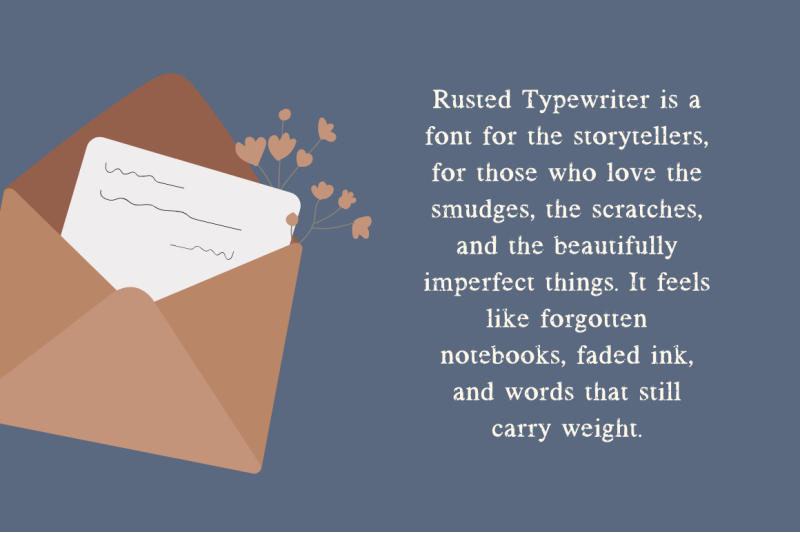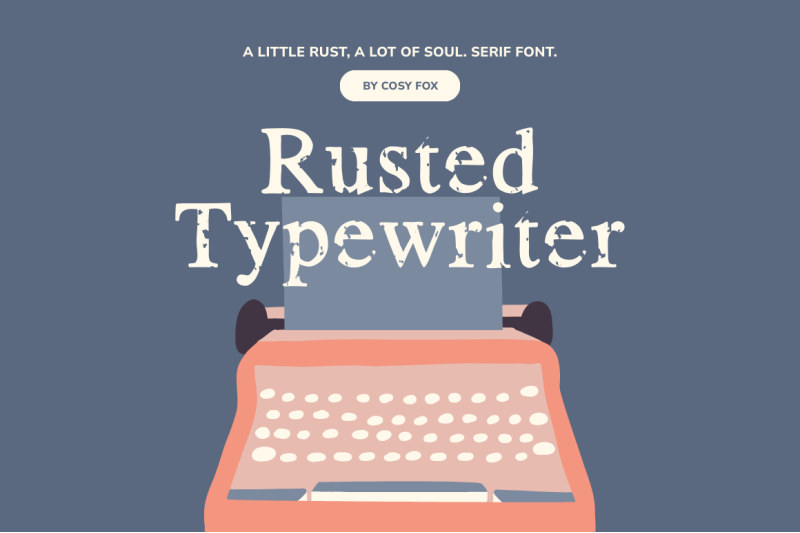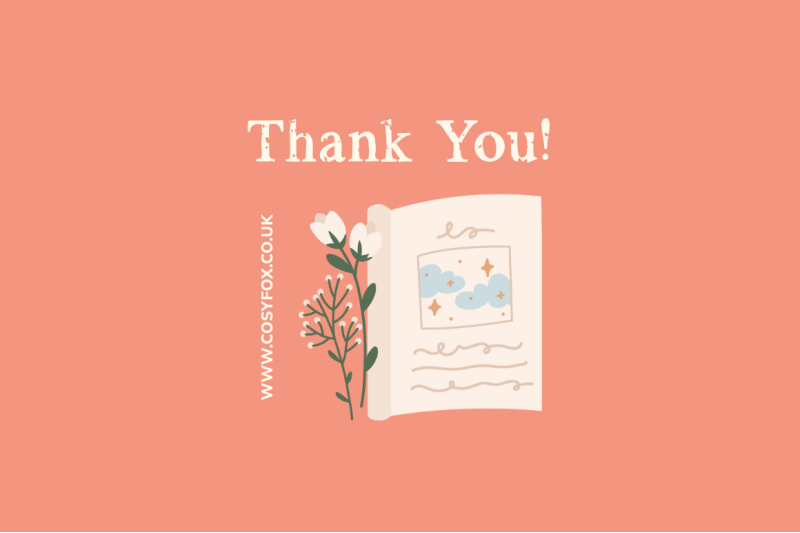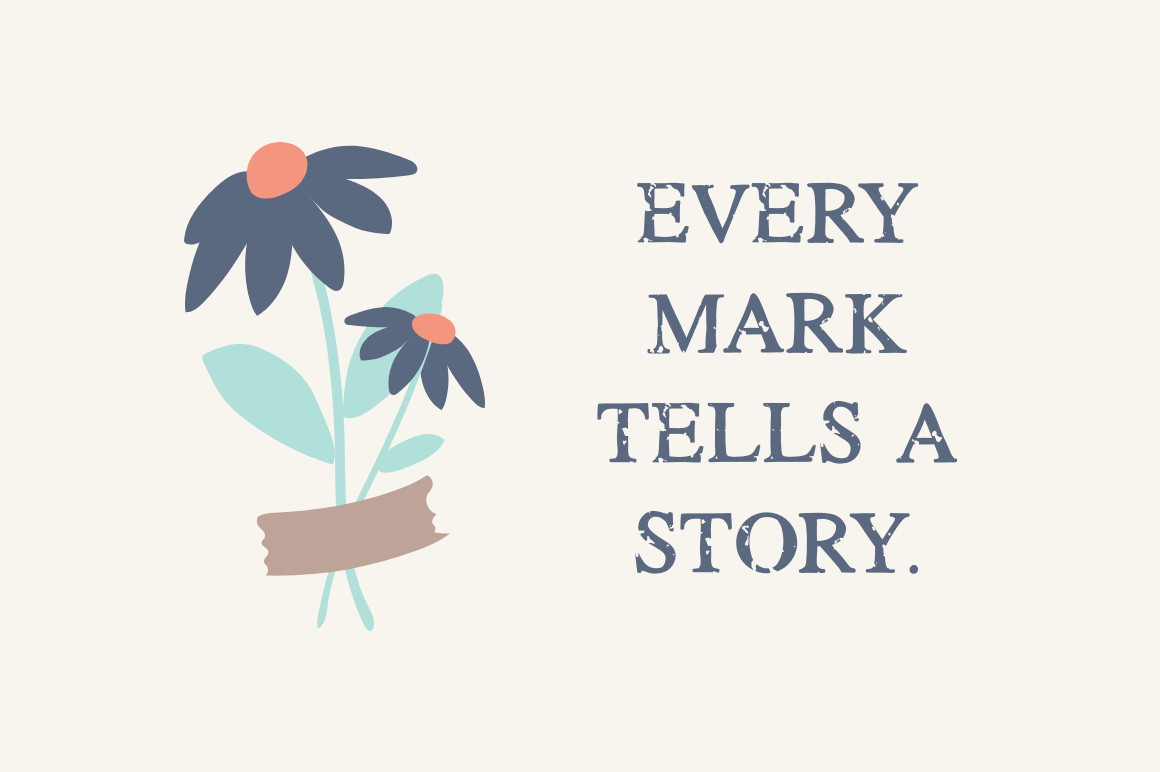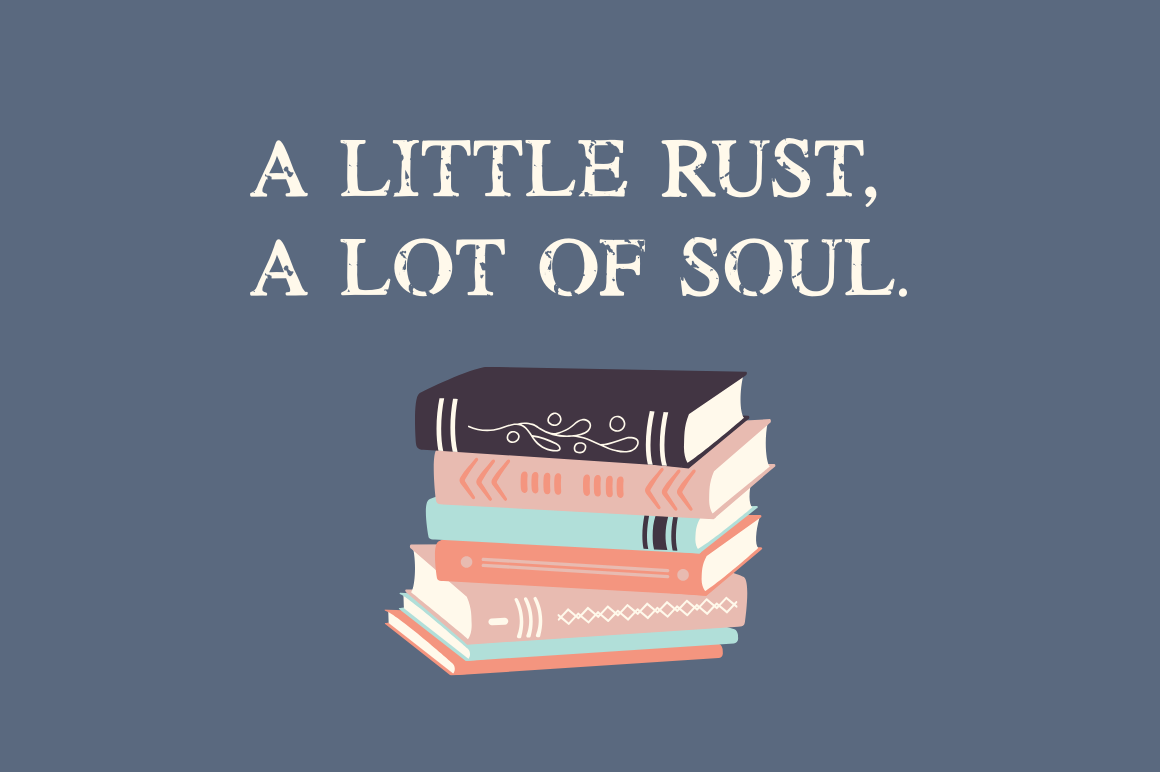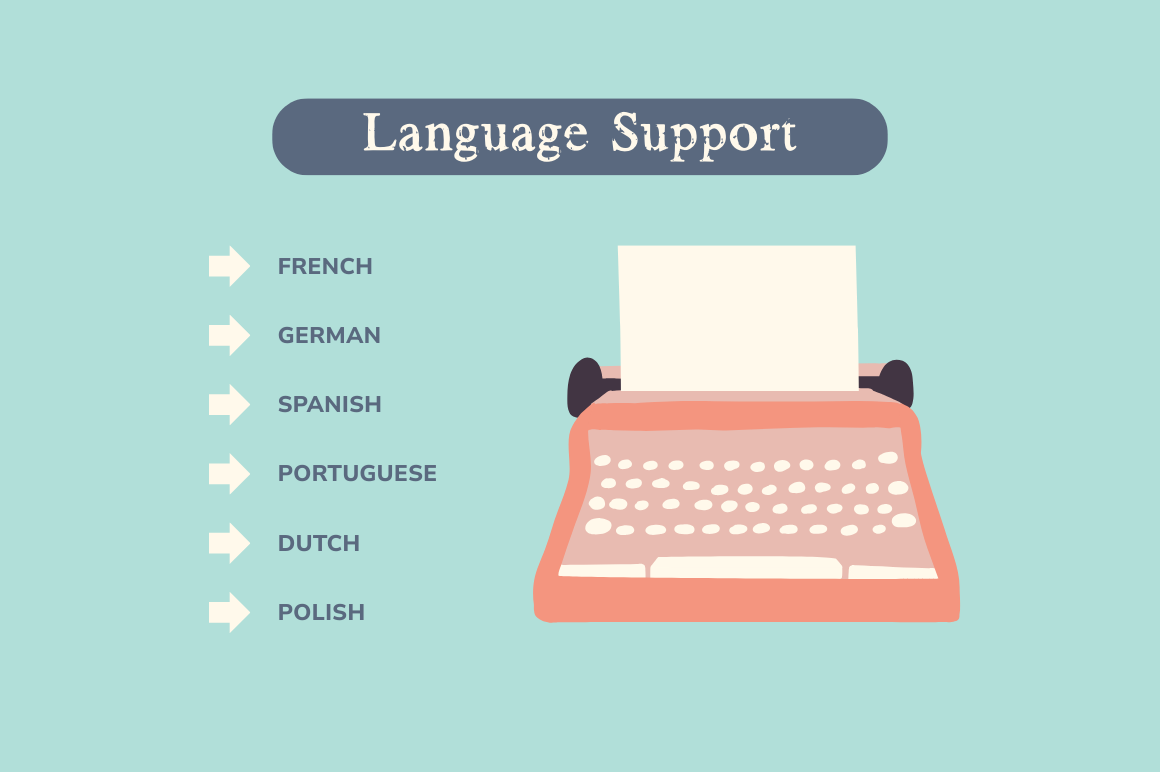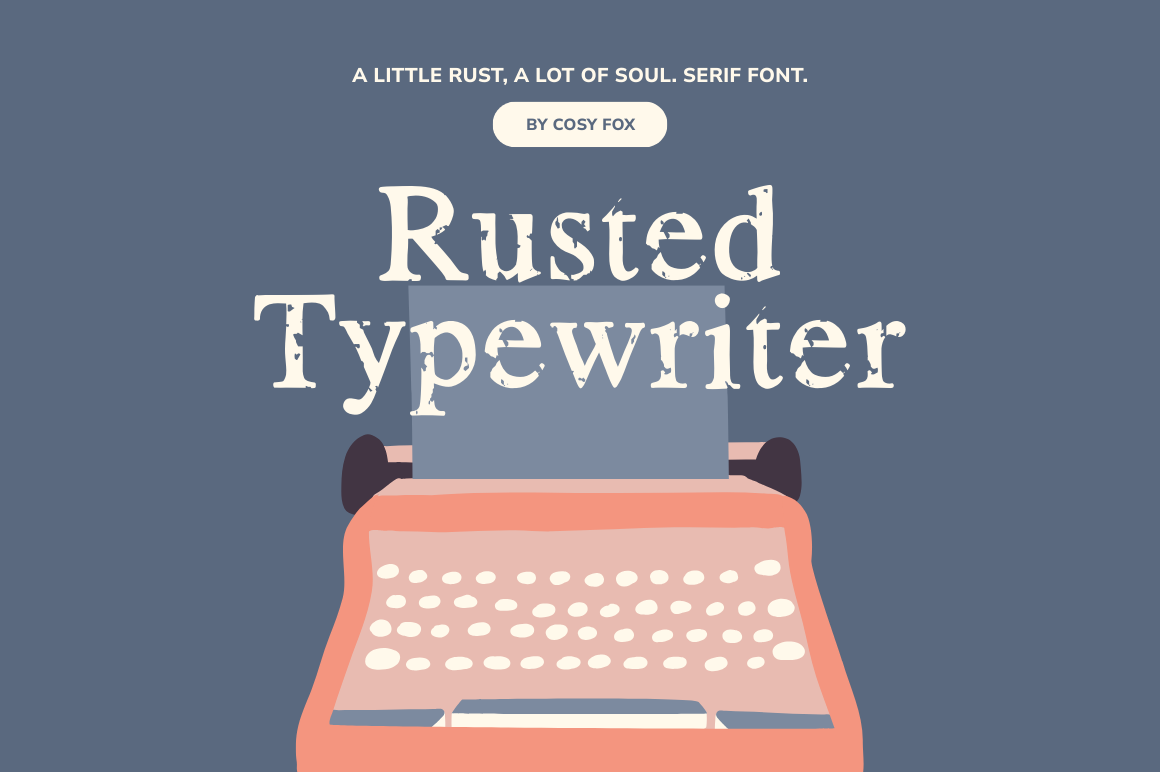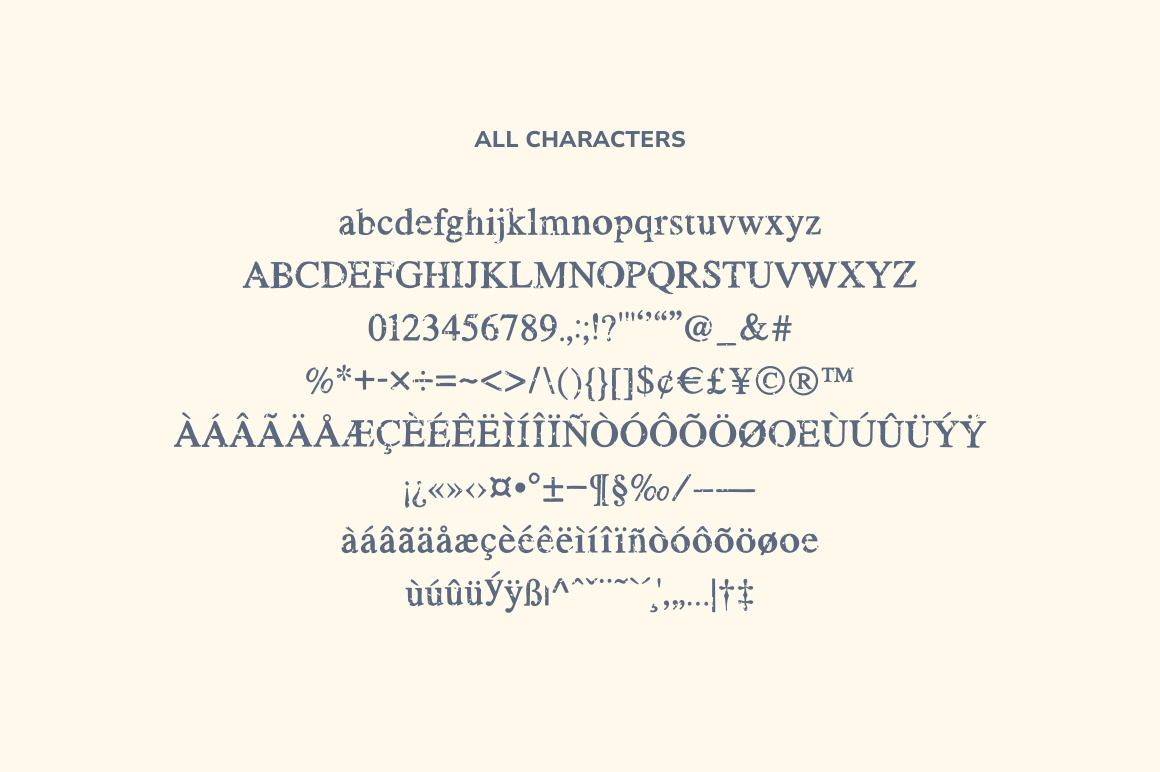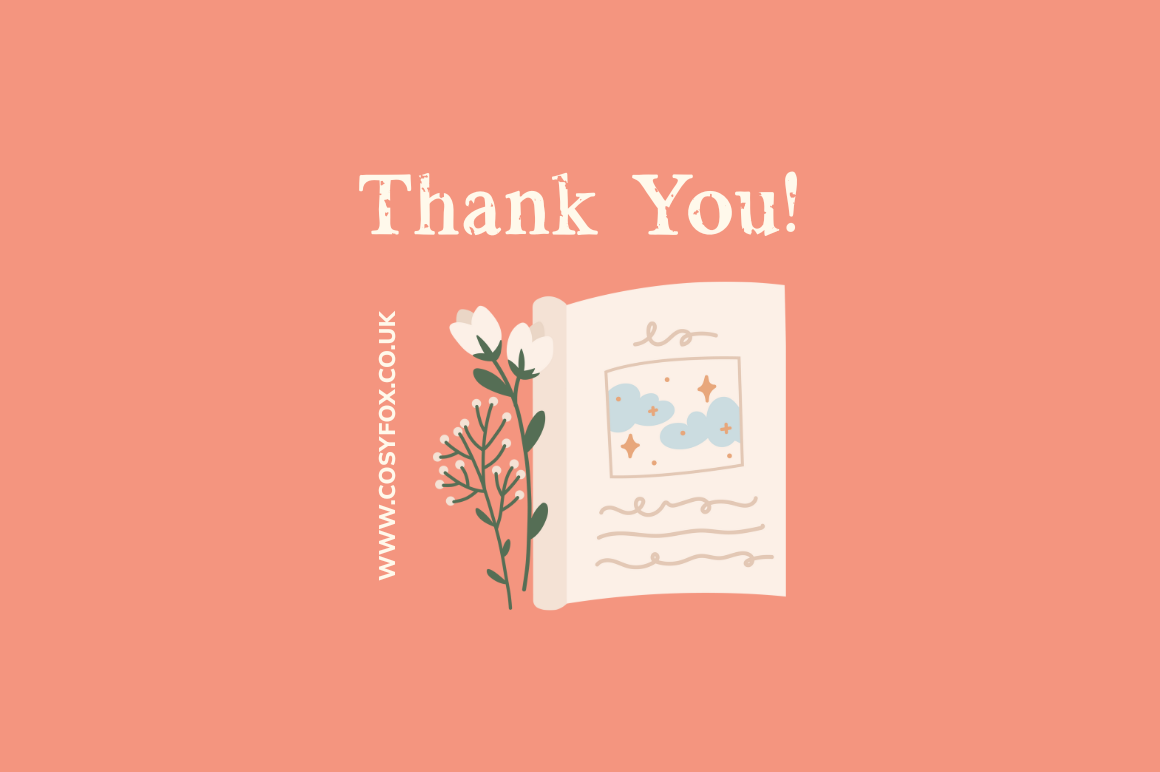
Rusted Typewriter is a textured serif font inspired by vintage machines and handwritten history. With a distressed finish and bold letterforms, it captures the imperfect beauty of old paper, ink smudges, and worn-out keys. Use it for journal-style branding, storytelling layouts, nostalgic posters, and anything that needs that raw, thoughtful edge. Rusted Typewriter brings grit and heart to your designs, no polish required. Includes full uppercase and lowercase alphabet, numbers, punctuation, multilingual support, and texture-rich detail in every letter. Fully compatible with Canva and Procreate. Language Support: French, German, Spanish, Italian and Portuguese. What You Get: Rusted Typewriter .OTF font file. How to Install PDF. Thank You! www.cosyfox.co.uk